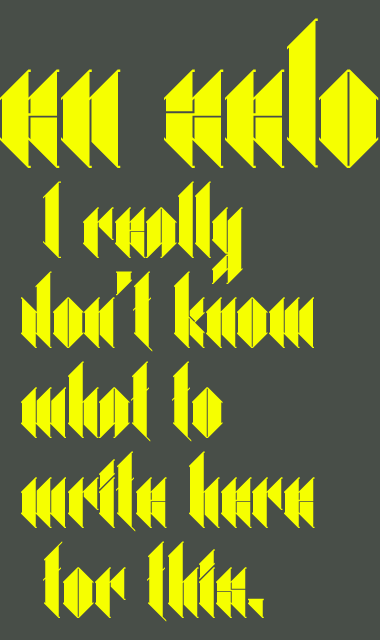
Font name: | En Zelo |
Author: | Naveen Chandru |
Note by Naveen Chandru | |
This one is created at www.fontstruct.com This design may irk your eyes. But, in bigger sizes, it looks great. Please, check the Illustration. I also appreciate it if you send me links/images of your work featuring this font. :D |